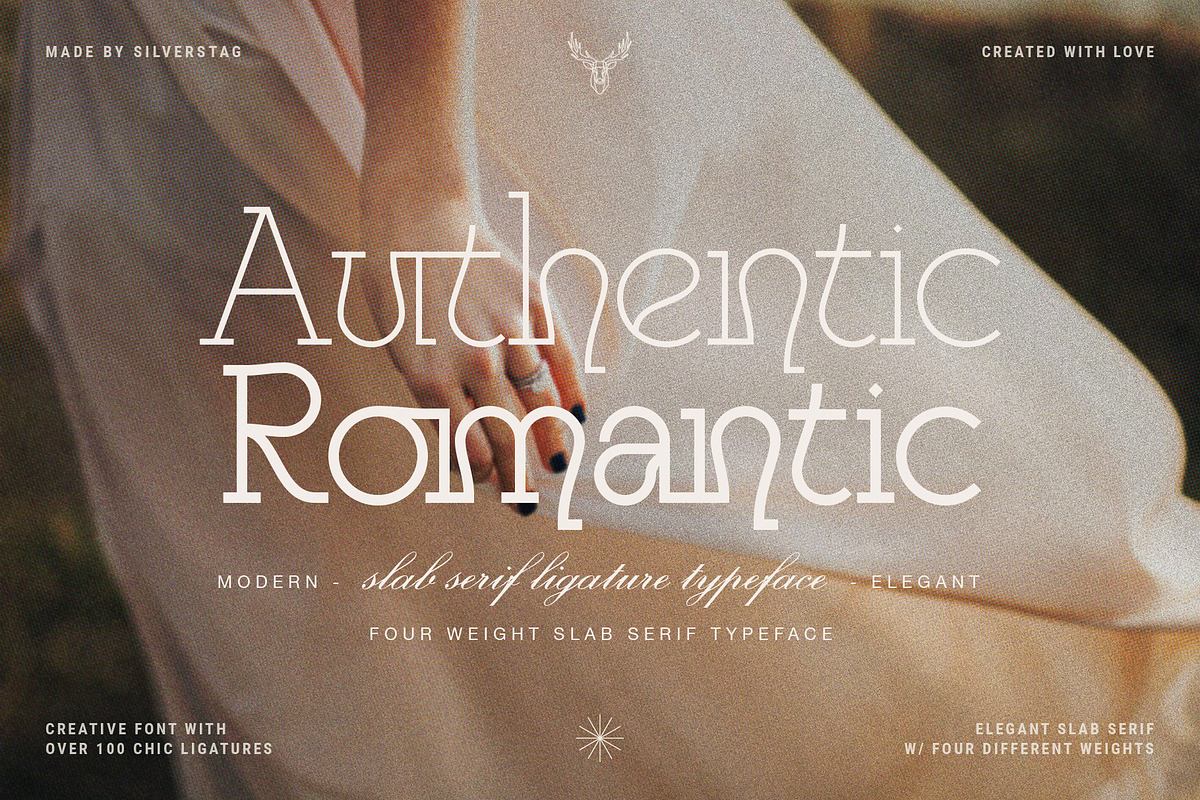
Authentic Romantic - Slab Serif Font Free Download
Authentic Romantic – Slab Serif Font Free Download is a charming and expressive typeface that combines the boldness of slab serifs with a touch of heartfelt elegance. Its strong serifs and slightly softened edges create a perfect balance between vintage structure and romantic warmth—ideal for wedding stationery, boutique branding, editorial headlines, and heartfelt packaging.
Authentic Romantic – Slab Serif Font Free Download brings personality and depth to your designs, standing out while remaining beautifully legible. It’s a great choice for designers looking to mix strength with sentiment in their visual storytelling.
Whether used in print or on screen, this font delivers character and class in equal measure. Try it out for free in personal projects or mockups, but remember—a commercial license is required for professional use. Let your designs speak with bold emotion through Authentic Romantic.